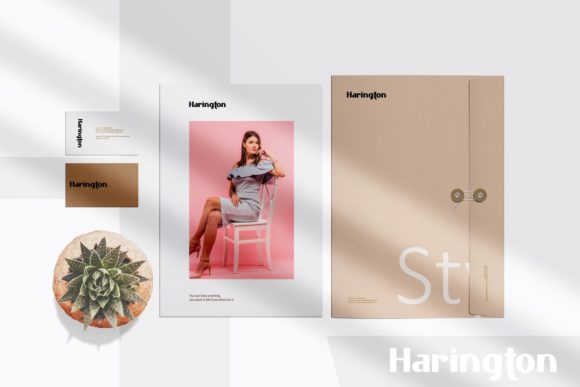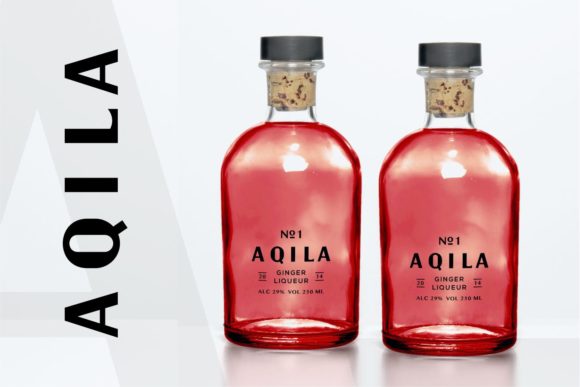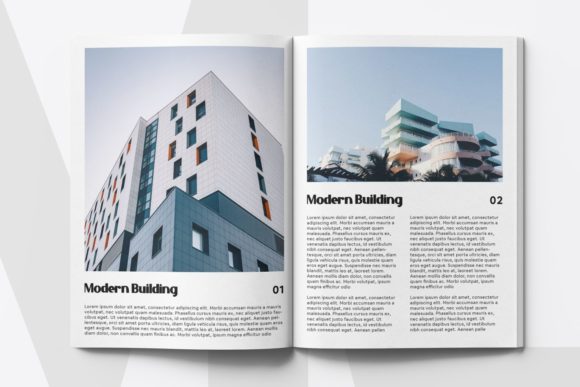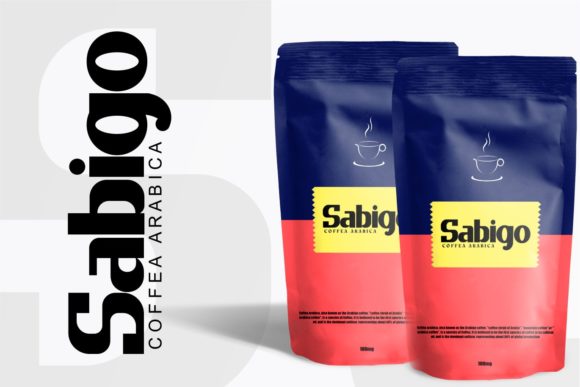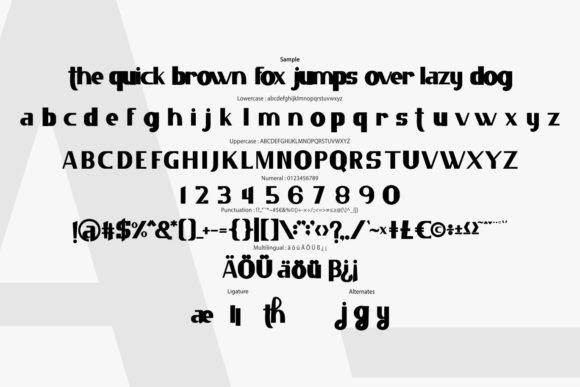
The Birth of a Bold New Font
Have you ever found yourself stuck in a creative rut, staring at a blank page or screen, searching for that elusive spark of inspiration? For designers, this moment can be a nightmare. But what if I told you that sometimes, all it takes is one simple font to set your imagination ablaze? Enter Agites Font, a masterfully designed display font that’s about to revolutionize the way you approach branding, packaging design, and more.
With its bold, sophisticated aesthetic and chunky, extended characters, Agites Font is the perfect solution for designers looking to make a statement. Whether you’re working on a high-end logo or a quirky packaging design, this font is sure to elevate your work to the next level. And with its versatility, you can trust that Agites Font will become a trusted companion in your creative journey.
Agites Font Key Features
- Font Family: Agites Font is a sans-serif font family, designed for use in digital and print media.
- Character Count: Agites Font includes over 2000 characters, including Latin, Cyrillic, and Greek alphabets.
- Resolution: Designed for use at resolutions up to 300 DPI, making it suitable for both screen and print use.
- Size: Agites Font comes in 6 font weights (Light, Regular, Medium, Bold, Heavy, Black) and 3 font styles (Italic, Oblique, Regular).
- Unique Characteristics: Agites Font features a clean, modern design with a distinctive geometric feel and a wide range of language support.
Agites Font Review
First off, let me say that Agites Font is a beautiful, modern sans-serif typeface that’s sure to grab attention. ✨ The font is designed to evoke a sense of energy and dynamism, which is reflected in its bold and expressive lines. ✨ The font is also highly legible, making it perfect for body text or display headings.
One of the things that really stands out about Agites Font is its versatility. ✨ It comes in a range of weights, from light to bold, making it easy to customize to suit your design needs. The font also includes a range of styles, including condensed and extended versions, which can be useful for creating unique and eye-catching designs.
- ⚠️ Limited language support: Agites Font only includes support for a limited range of languages, which may be a problem for designers working on multilingual projects.
- ⚠️ Not suitable for small text: While Agites Font is highly legible, it’s not the best choice for small text. The bold lines and condensed forms can make it difficult to read at small sizes.
Overall, Agites Font is a great addition to any designer’s toolkit. It’s modern, stylish, and highly customizable, making it perfect for a wide range of design projects. However, its limitations should be taken into account, particularly when working on multilingual or small-text projects.
Getting the Most Out of Agites Font
Agites Font is a versatile and elegant font that can be used in a variety of contexts. To get the most out of it, try the following:
- Use it for headings and titles to add a touch of sophistication
- Pair it with other elegant fonts for a cohesive look
- Experiment with different font sizes and styles to create visual interest
Agites Font is particularly well-suited for: